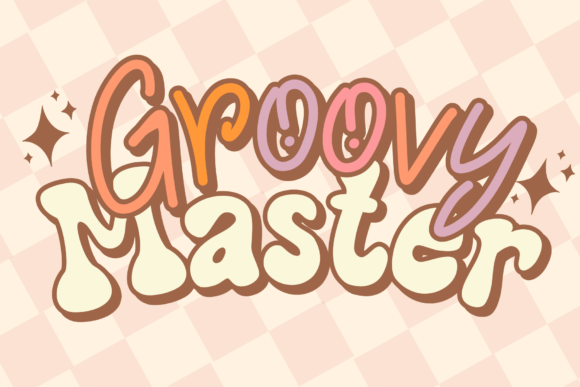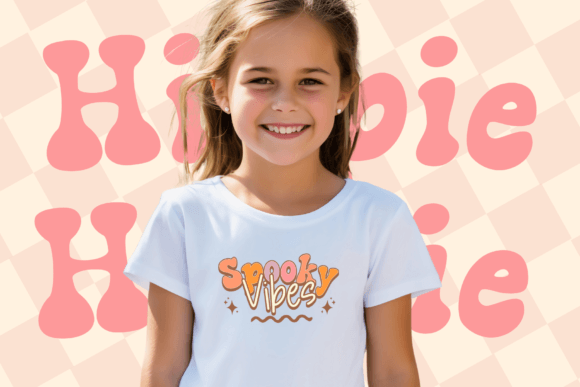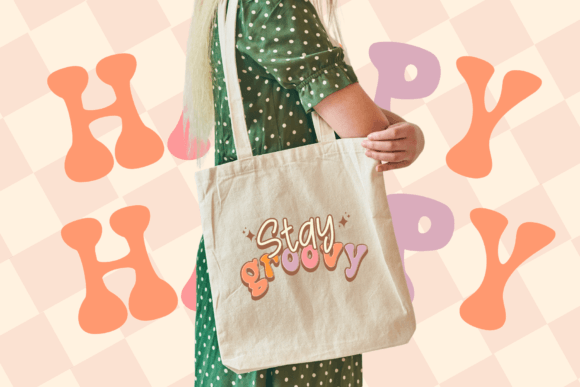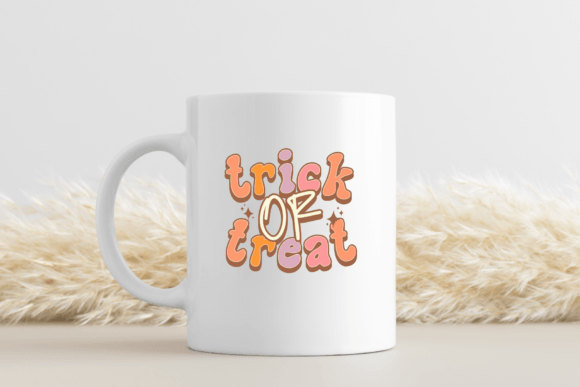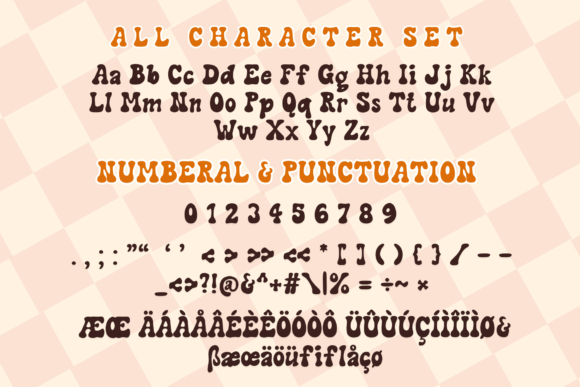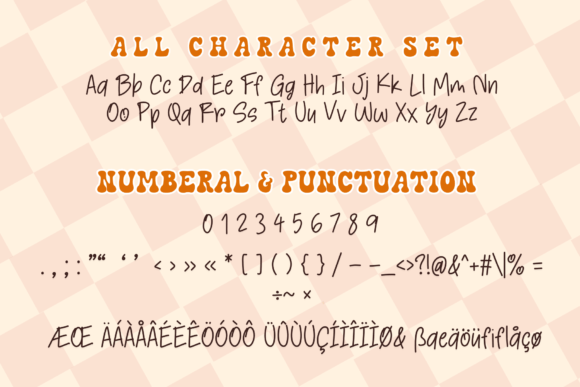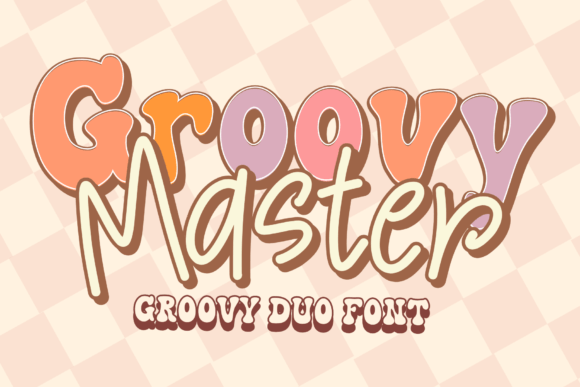
Introducing the Groovy Master Font: Elevate Your Designs with a Retro Twist
Are you a designer or crafter looking for a font that embodies the cool and groovy aesthetic of the past? Look no further than the Groovy Master Font, a stylish retro duo font that combines a display and handwritten typeface to bring a touch of playfulness and authenticity to your designs.
The Perfect Blend of Style and Authenticity
Groovy Master Font is the ideal choice for all your hippie-inspired designs, from blog posts and logos to branding, ads, invitations, greeting cards, planners, photo albums, decorations, and more. This versatile font duo is designed to add a unique and eye-catching element to any project, giving it a distinctive retro vibe that’s sure to turn heads.
Key Features of the Groovy Master Font
- Retro Duo Font: Groovy Master Font combines a display and handwritten typeface, offering the perfect blend of style and authenticity.
- Playful and Authentic: This font embodies the carefree spirit of the past, bringing a touch of playfulness and genuineness to your designs.
- Highly Versatile: Use Groovy Master Font for a wide range of projects, from digital designs to print materials.
Why Choose the Groovy Master Font?
With the Groovy Master Font, you can add a unique and stylish element to your designs, setting them apart from the rest. This font is perfect for:
- Hippie-Inspired Designs: Bring the spirit of the 60s and 70s to your designs with a font that’s reminiscent of the era.
- Retro-Themed Projects: Create designs that evoke a sense of nostalgia and fun with the Groovy Master Font.
- Creative Projects: Add a touch of playfulness and creativity to your designs, from art and craft projects to digital designs and more.
Tips for Using the Groovy Master Font
To get the most out of the Groovy Master Font, here are a few tips to keep in mind:
- Mix and Match: Combine the display and handwritten typefaces to create a unique and eye-catching design.
- Experiment with Colors: Try out different color schemes to find the perfect combination that complements your design.
- Play with Texture: Add texture to your design to give it a more authentic and retro feel.
The Groovy Master Font is a versatile and stylish font duo that’s perfect for designers and crafters looking to add a touch of retro flair to their designs. With its playful and authentic aesthetic, this font is ideal for a wide range of projects, from hippie-inspired designs to retro-themed projects and more. So why wait? Add the Groovy Master Font to your design toolkit today and start creating unique and eye-catching designs that are sure to turn heads!
Get Ready to Groove with the Groovy Master Font!
Don’t miss out on the opportunity to elevate your designs with the Groovy Master Font. With its unique blend of style and authenticity, this font duo is sure to become a staple in your design toolkit. So go ahead, get creative, and let the Groovy Master Font take your designs to the next level!